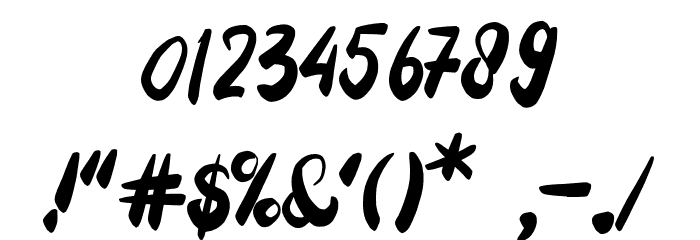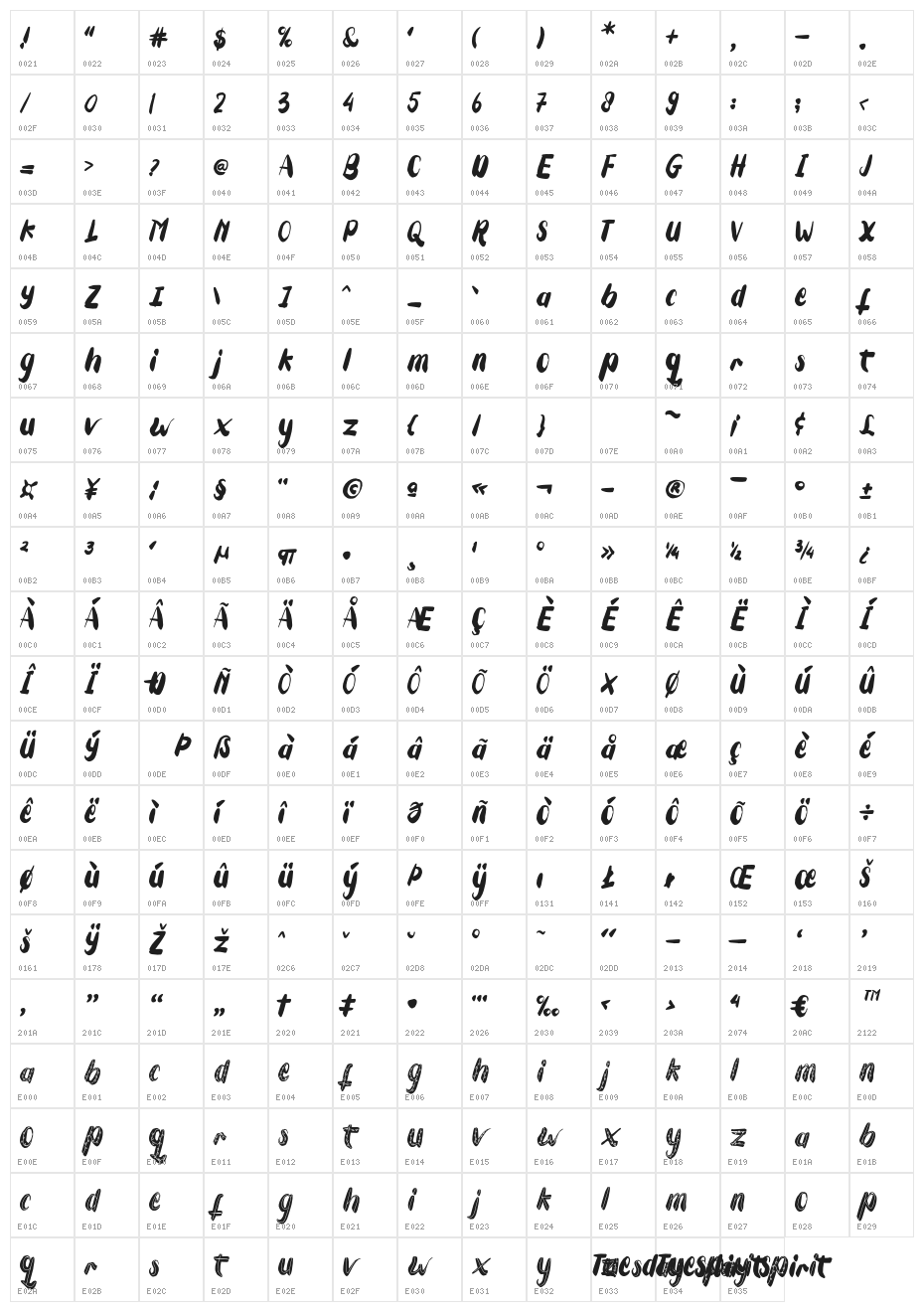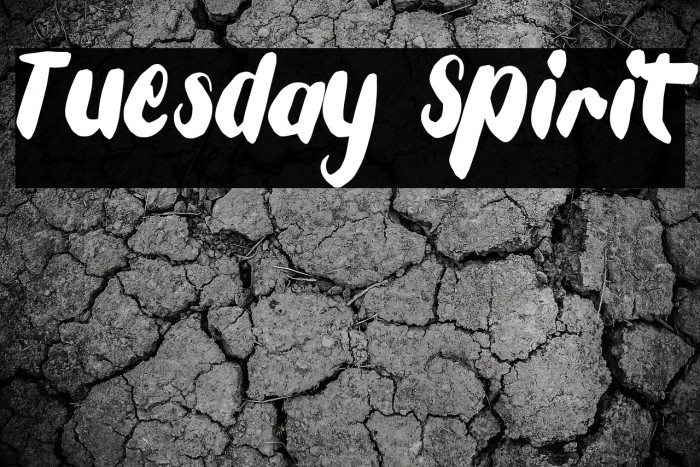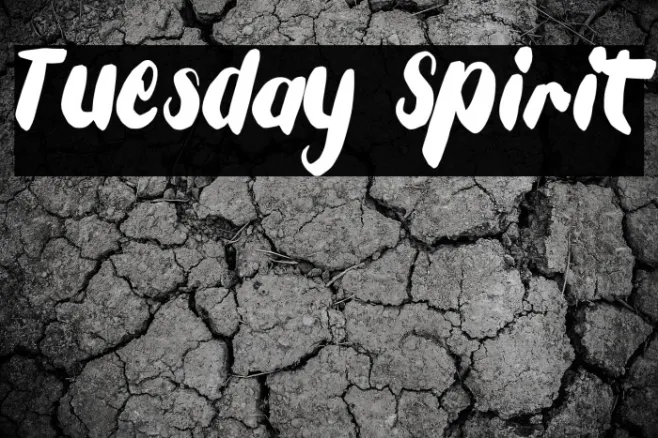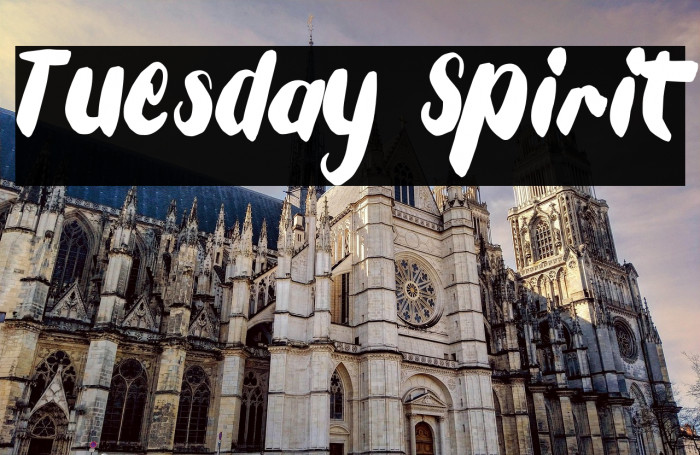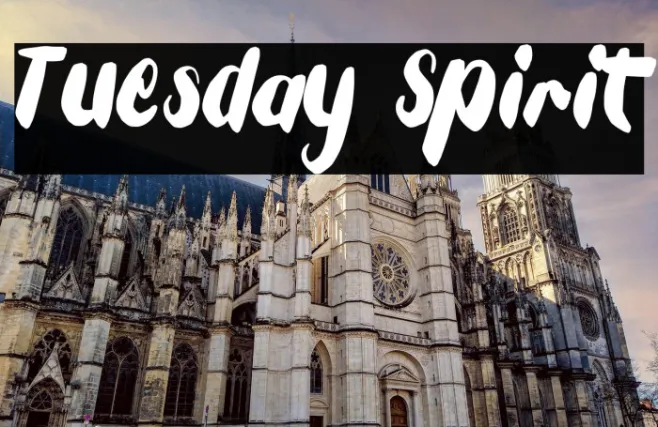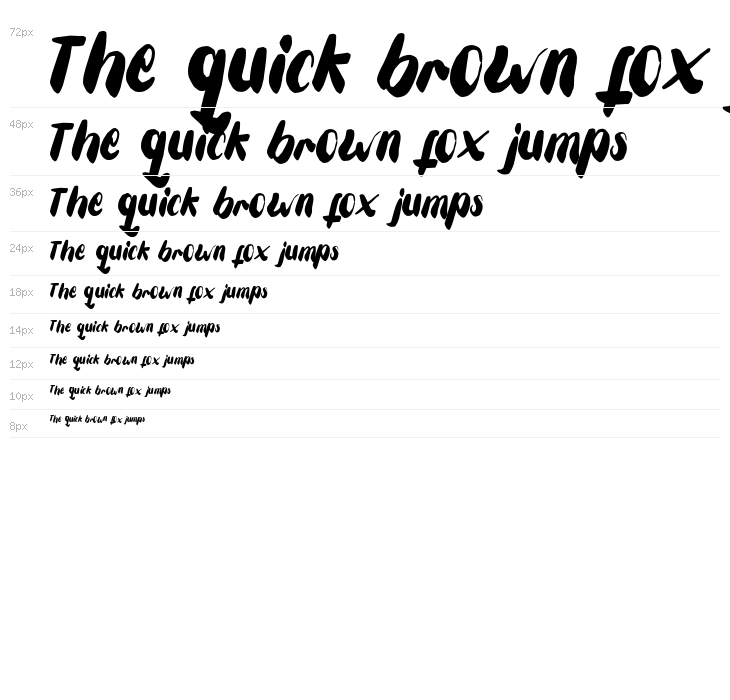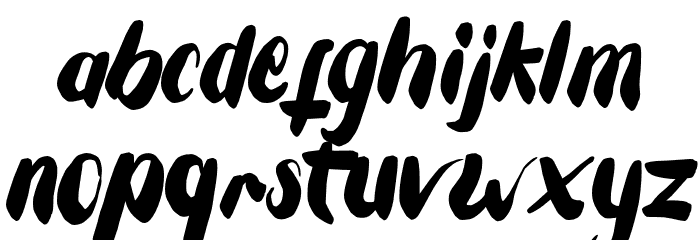
Tuesday Spirit Font
Tuesday Spirit Description
This font exudes a lively and energetic vibe with its bold, brush-like strokes. The characters are slightly slanted, giving a sense of movement and fluidity. The uppercase letters are robust and dynamic, while the lowercase letters maintain a consistent style with a touch of playfulness. The numbers are equally bold, ensuring they stand out. Special characters are crafted with the same bold strokes, maintaining uniformity across the font. The overall appearance is both artistic and modern, making it suitable for creative projects.
| Proposed Projects | Ideal for posters, branding, social media graphics, and creative headlines. |